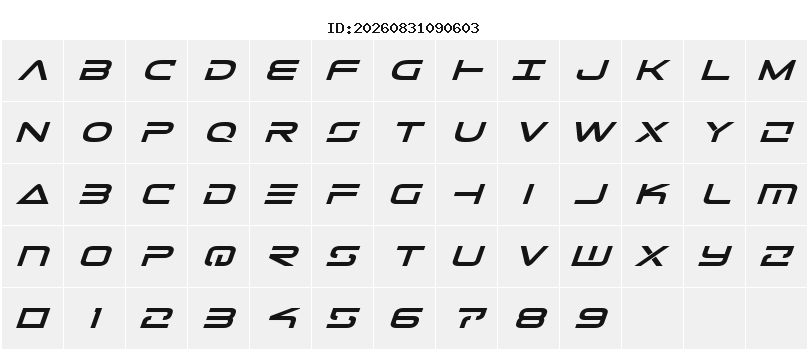
Tele-Marines Bold Expanded Italic Preview
• Font Name: Tele-Marines Bold Expanded Italic
• Font Style: Bold Expanded Italic
• Full Font Name: Tele-Marines Bold Expanded Italic
About Tele-Marines Bold Expanded Italic.ttf
Tele-Marines Bold Expanded Italic.ttf is a modern, elegant sans-serif font designed for ultimate readability and visual harmony. Perfect for branding, headlines, web design, and print materials.